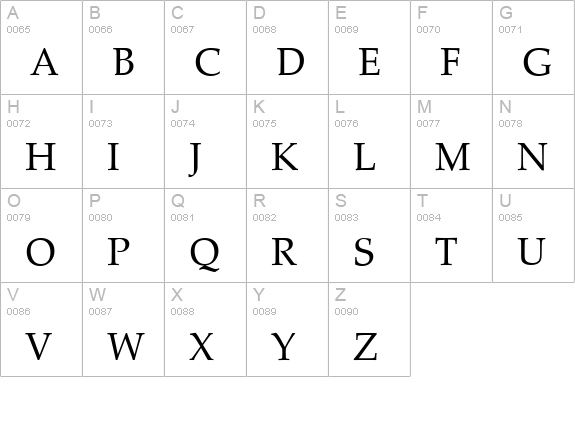
URWPalladioT Font Details
URWPalladioT is a stunning font that combines elegance with a touch of modernity. This versatile typeface is perfect for a wide range of design projects, from branding to editorial layouts. With its clean lines and beautifully balanced proportions, URWPalladioT adds a sophisticated touch to any design. What makes URWPalladioT even more remarkable is that it is available for free. Yes, you heard it right - this exceptional font can be freely downloaded at FontsMarket.com. Whether you are a professional designer or an aspiring creative, having access to high-quality fonts without breaking the bank is a game-changer. URWPalladioT offers a wide range of weights and styles, allowing you to experiment with different looks and create unique visual experiences. The font's attention to detail is evident in its carefully crafted letterforms, which seamlessly blend classic elegance with a contemporary twist. Whether you are working on a logo, a magazine spread, or a website design, URWPalladioT will effortlessly elevate your work to new heights. Its legibility and readability make it an excellent choice for both headlines and body text, ensuring that your message is conveyed with clarity and impact. So why wait? Head over to FontsMarket.com and download URWPalladioT for free today. Don't miss out on the opportunity to enhance your design projects with this exceptional font. URWPalladioT is here to help you achieve your creative vision and make a lasting impression.